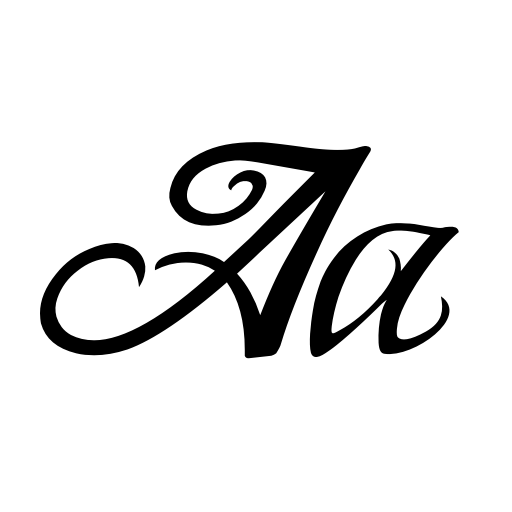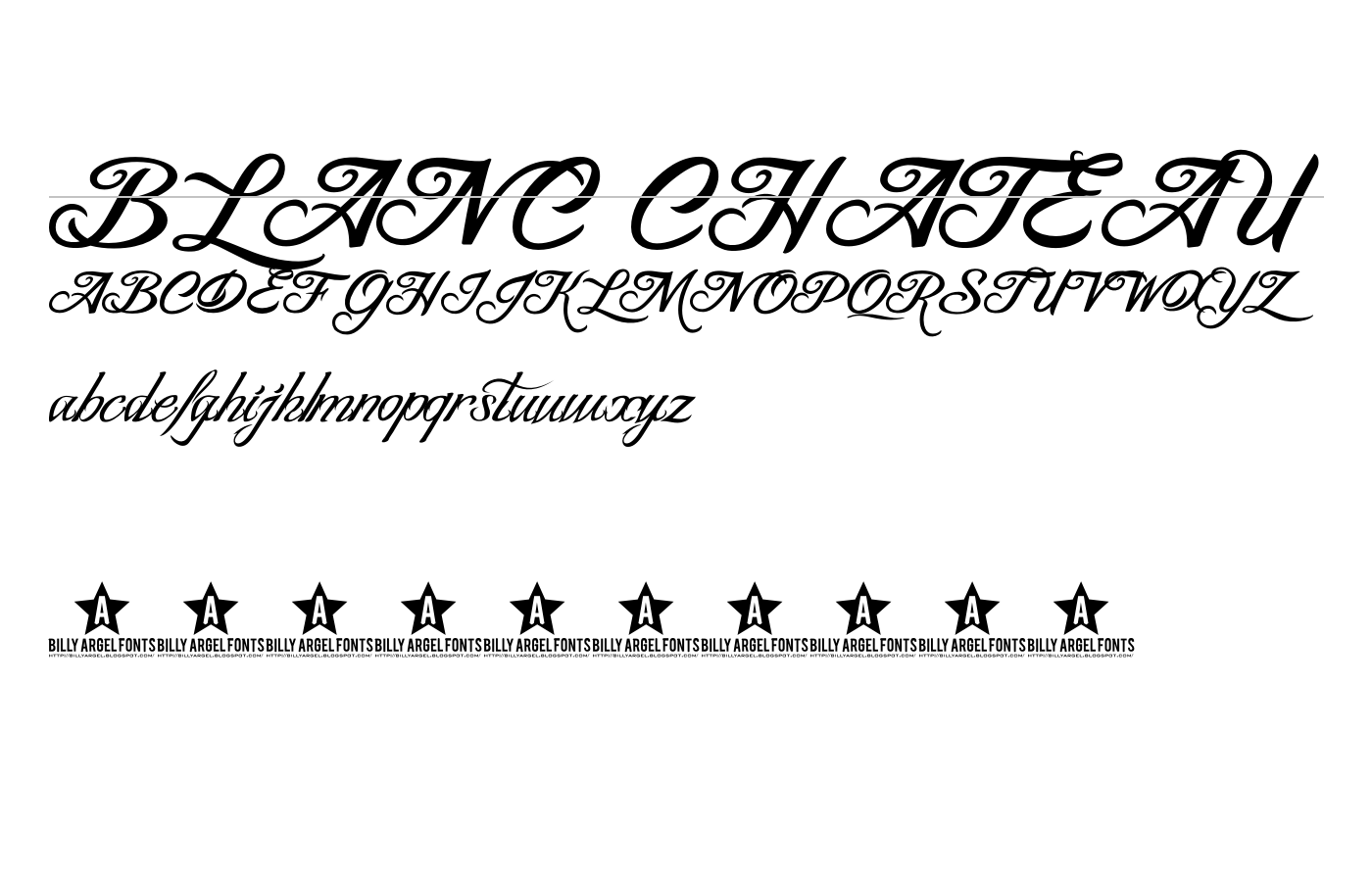
Blanc Chateau is an elegant script font with beautifully flowing strokes and refined curls, evoking a sense of sophistication and classic charm. Its balanced weight and smooth, calligraphic letterforms make it perfect for luxury branding, wedding invitations, or any design that calls for a graceful, timeless appeal. This font shines in headlines, logos, and decorative uses where an artistic, refined touch is desired.
BLANC CHATEAU Font
About BLANC CHATEAU Font